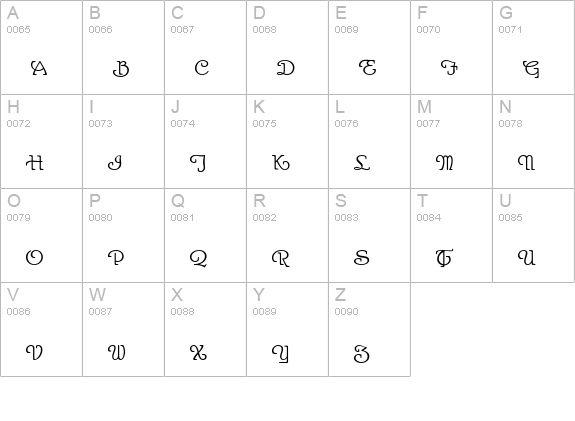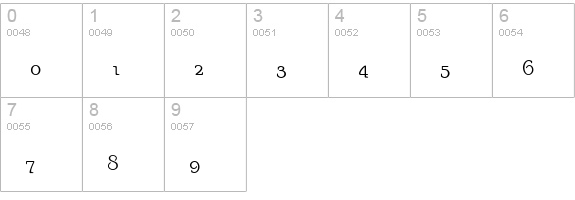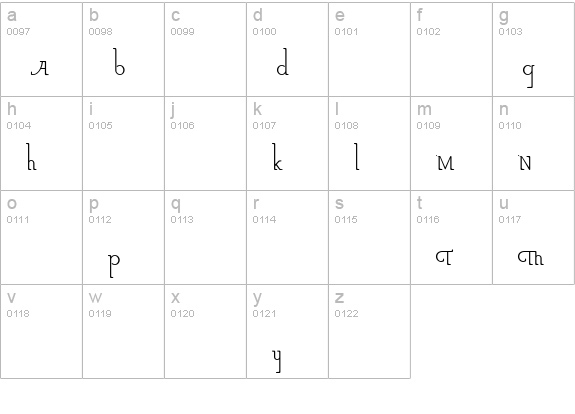
ParsnipNF Swash Caps Font Details
ParsnipNF Swash Caps font is a delightful and elegant typeface that exudes a sense of sophistication and charm. With its graceful curves and stylish swashes, this font adds a touch of whimsy and personality to any design project. Whether you're creating invitations, branding materials, or simply looking to add a touch of flair to your digital content, ParsnipNF Swash Caps font is the perfect choice. Its unique combination of classic letterforms and playful embellishments make it a versatile option for both formal and casual applications. One of the best features of ParsnipNF Swash Caps font is that it is available for free download at FontsMarket.com. This means that you can easily access and use this stunning font in your projects without any cost. It's a fantastic opportunity to enhance your designs with a high-quality typeface that won't break the bank. Designed with precision and attention to detail, ParsnipNF Swash Caps font offers a wide range of stylistic alternatives and ligatures, allowing you to customize your text to perfection. Its generous selection of swashes and decorative elements adds an extra layer of elegance, ensuring that your designs stand out from the crowd. With its smooth lines and balanced proportions, ParsnipNF Swash Caps font is a true masterpiece that will elevate your design work to new heights. Its versatility and beauty make it suitable for a variety of creative projects, from wedding invitations to logo design and everything in between. So why wait? Take advantage of the opportunity to freely download ParsnipNF Swash Caps font at FontsMarket.com and unlock a world of possibilities for your design endeavors. Embrace the beauty and sophistication of this stunning typeface and let it add a touch of magic to your creations.